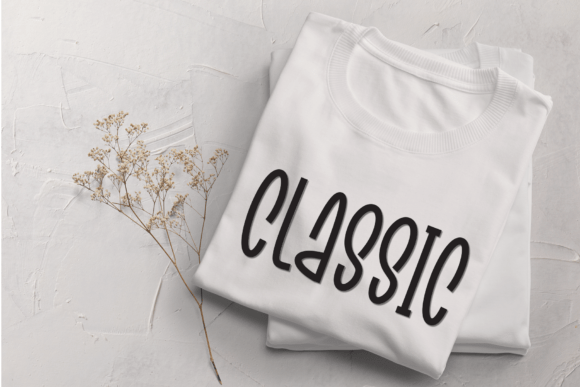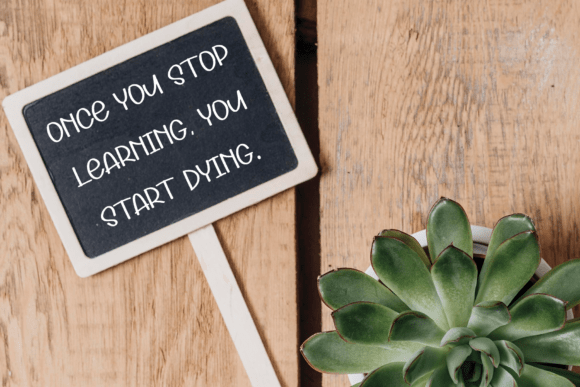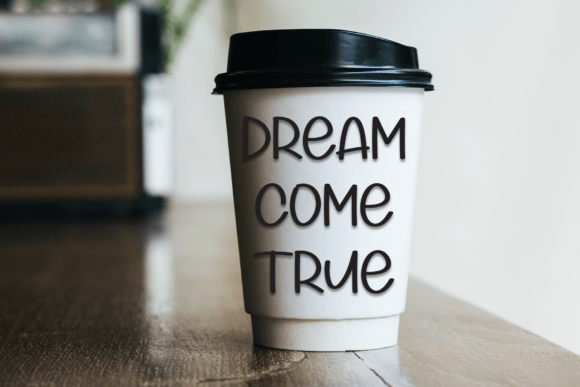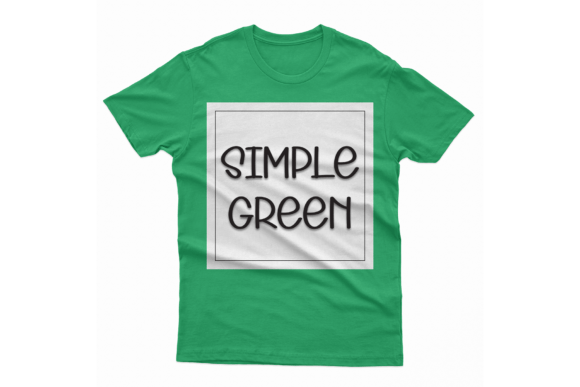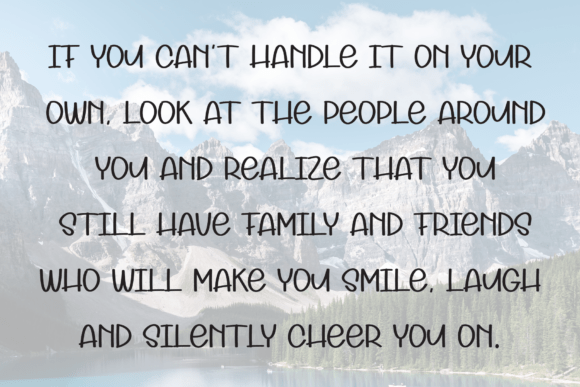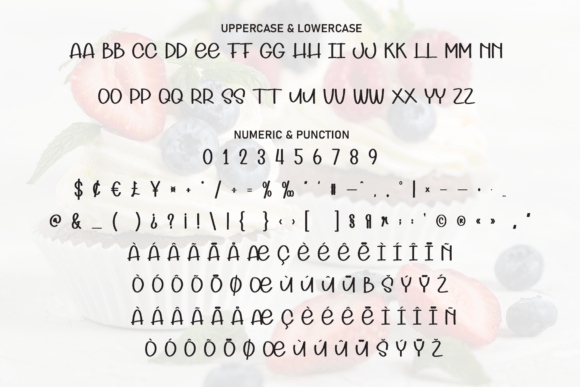
The Sweet Spot: Discovering the Charm of Cupcake Font
I’ll never forget the time I was working on a branding project for a bakery, and I just couldn’t find the right font to capture the warmth and friendliness of their brand. The client wanted something that felt approachable, yet still looked polished and professional. That’s when I stumbled upon Cupcake Font, and it was love at first sight! 💕
With its clean structure and inviting style, Cupcake Font was the perfect fit for the bakery’s branding. But what really drew me in was its versatility – it’s just as at home in headlines, signage, and packaging as it is in digital designs and social media graphics.
A Honest Review: The Good, the Great, and the Quirks
- ✨ Readability and charm: Cupcake Font strikes the perfect balance between being easy to read and having a unique personality.
- ✅ Clean structure: The font’s clean lines and simple shapes make it versatile and easy to use in a variety of contexts.
- 💬 Approachable style: Cupcake Font feels friendly and inviting, making it perfect for brands that want to connect with their audience.
- 🤔 Limited character set: While Cupcake Font has a wide range of characters, it’s not a full-featured font with lots of alternate glyphs or special characters.
- ⚠️ Not ideal for body text: While Cupcake Font is great for headlines and titles, it’s not the best choice for body text or long-form content.
The Story Behind Cupcake Font
Cupcake Font was designed by a team of creatives who wanted to create a font that was both beautiful and functional. Inspired by the warmth and comfort of freshly baked cupcakes, they crafted a font that would bring a touch of sweetness to any design project.
The design team spent countless hours perfecting the font’s clean structure, approachable style, and balanced letterforms. The result is a font that’s both easy to read and visually appealing – perfect for branding, headlines, and everyday designs.
Q: What is Cupcake Font best used for?
A: Cupcake Font is best used for branding, headlines, titles, and creative projects where a friendly, approachable style is desired.
Q: Is Cupcake Font available in different weights or styles?
A: Currently, Cupcake Font is available in a single weight. However, the design team may release additional weights or styles in the future.
Q: Can I use Cupcake Font for body text or long-form content?
A: While Cupcake Font is a beautiful font, it’s not ideal for body text or long-form content. It’s best used for headlines, titles, and short-form text.